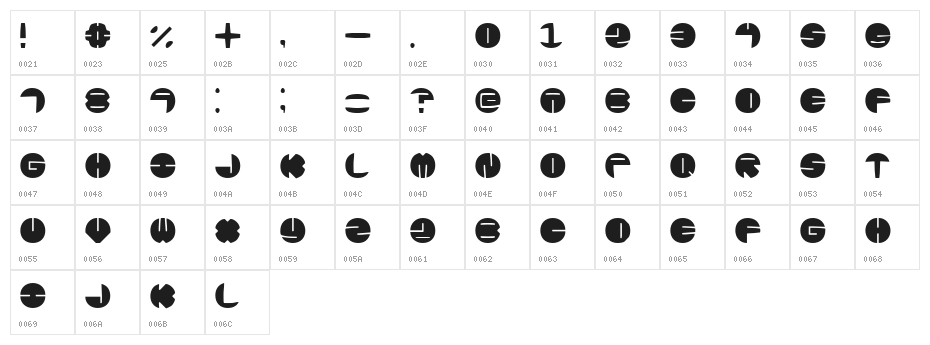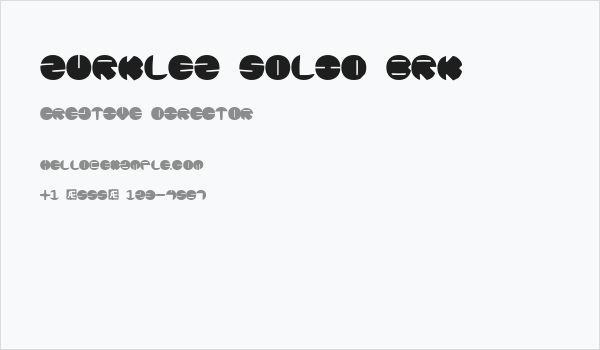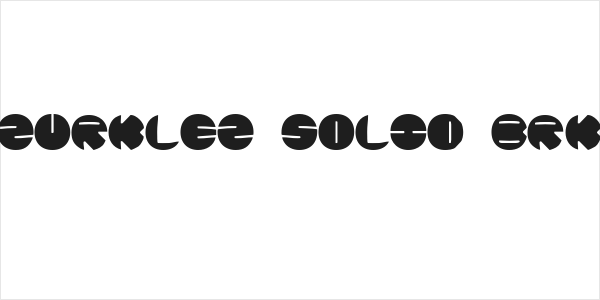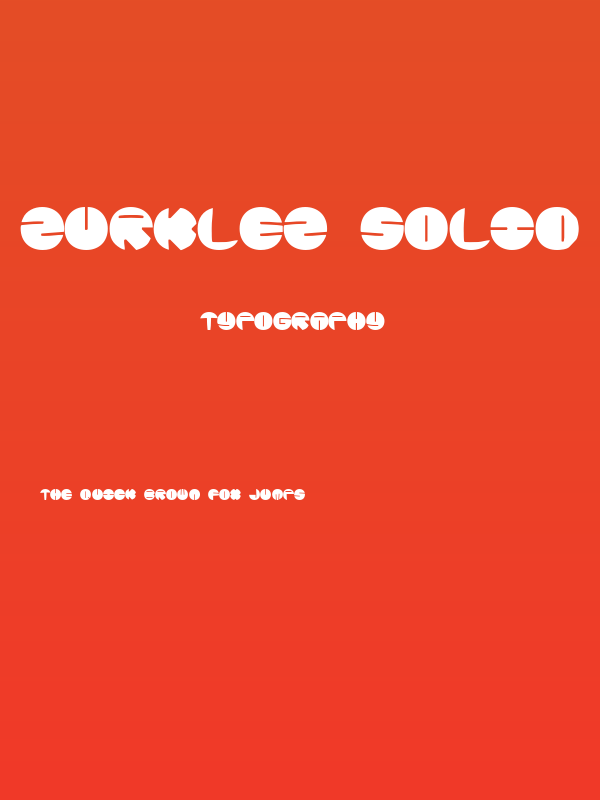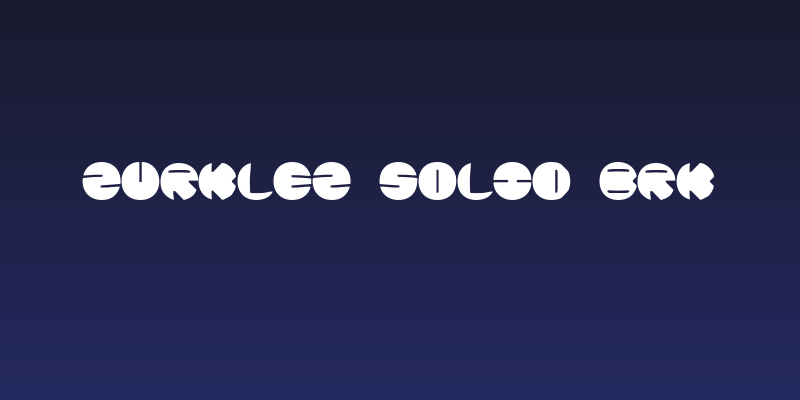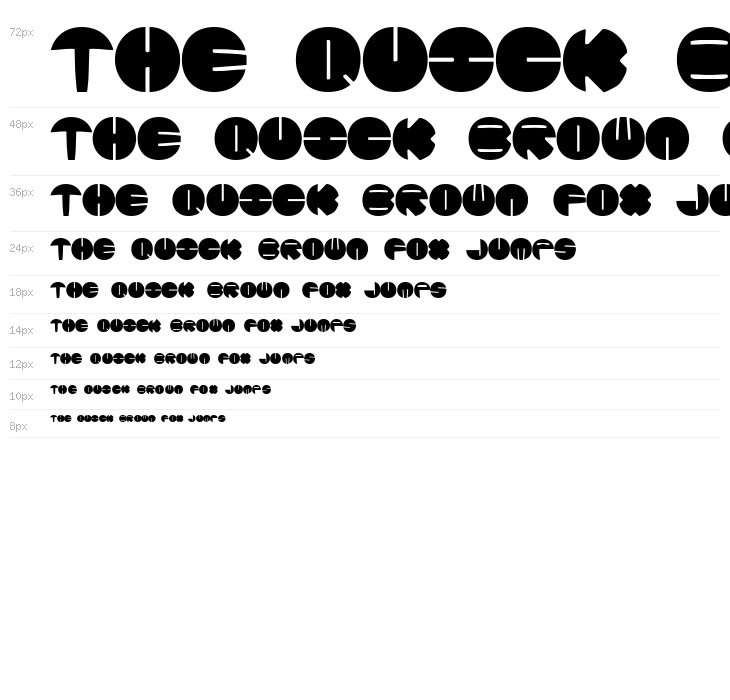
Zurklez Solid BRK Font
Zurklez Solid BRK Description
This font features a bold, geometric design with a futuristic and abstract aesthetic. The characters are composed of solid, rounded shapes with distinct cutouts and negative spaces, creating a unique and eye-catching appearance. The uppercase and lowercase letters maintain a consistent style, with a strong emphasis on circular forms and symmetrical elements. The numbers and special characters follow the same design principles, ensuring a cohesive look across all glyphs. This font's striking visual style makes it ideal for projects that require a modern and unconventional typeface.